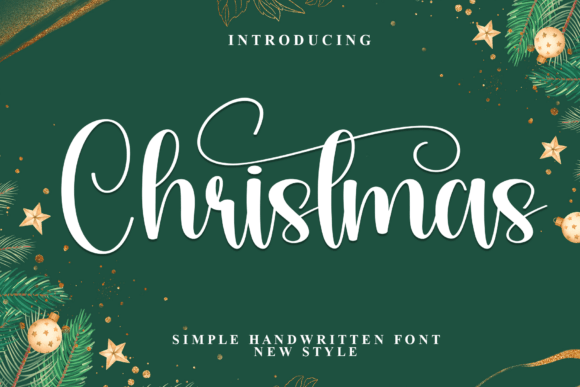
Unwrapping the Magic of Christmas Design
As the holiday season approaches, designers are scrambling to create festive and eye-catching content that captures the essence of Christmas. It’s a time when creativity knows no bounds, and the possibilities are endless. Whether you’re crafting a holiday card, designing a gift tag, or creating a social media post, the right font can make all the difference. That’s where the Christmas Font comes in – a stylish script font that embodies the spirit of the season with its elegant, hand-painted feel.
This versatile font is a game-changer for designers, offering a unique blend of artistic flair and modern sophistication. With its fluid brush strokes and dynamic curves, the Christmas Font is perfect for adding a creative touch to logos, invitations, packaging, and social media graphics. Its natural flow and vibrant character make it a valuable addition to any design arsenal, delivering both visual impact and versatility.
Key Features of Christmas Font
- Unique Characteristics: This font features intricate, hand-drawn designs and ornaments that evoke a festive and nostalgic feel, perfect for holiday-themed designs and projects.
- Customizability: The font family includes various ligatures, swashes, and ornaments that can be used to create unique and personalized designs, adding an extra layer of creativity and flair.
Review of Christmas Font
Overall, I’d say that the Christmas Font is a fun, playful addition to any holiday-themed design project. ✨ It’s got a classic feel to it, with bold lines and a festive spirit that’s hard to resist.
Overall, I think the Christmas Font is a great choice for designers looking to add a touch of holiday cheer to their projects. While it’s not perfect, its strengths far outweigh its weaknesses, and with a little creativity, you can work around its limitations.
Tips for Getting the Most Out of Christmas Font
To get the most out of Christmas Font, use it in conjunction with festive graphics and colors to create a cohesive holiday design. Experiment with different font sizes and colors to add visual interest and emphasis.
Christmas Font is commonly used in holiday-themed designs, such as:
- Christmas cards and invitations
- Holiday party decorations and signage
- Seasonal marketing materials and advertisements
- Personalized gifts and ornaments
Alternatives to Christmas Font for Designers
Great Vibes is a beautiful, elegant script font that can evoke a festive feel. It’s ideal for designing invitations, greeting cards, and other seasonal materials. Great Vibes is more versatile than Christmas Font, as it can be used for various occasions beyond the holiday season.
Comparison: While Christmas Font is specifically designed for Christmas, Great Vibes offers a more timeless feel, making it a better choice for designers who want a font that can be used year-round.